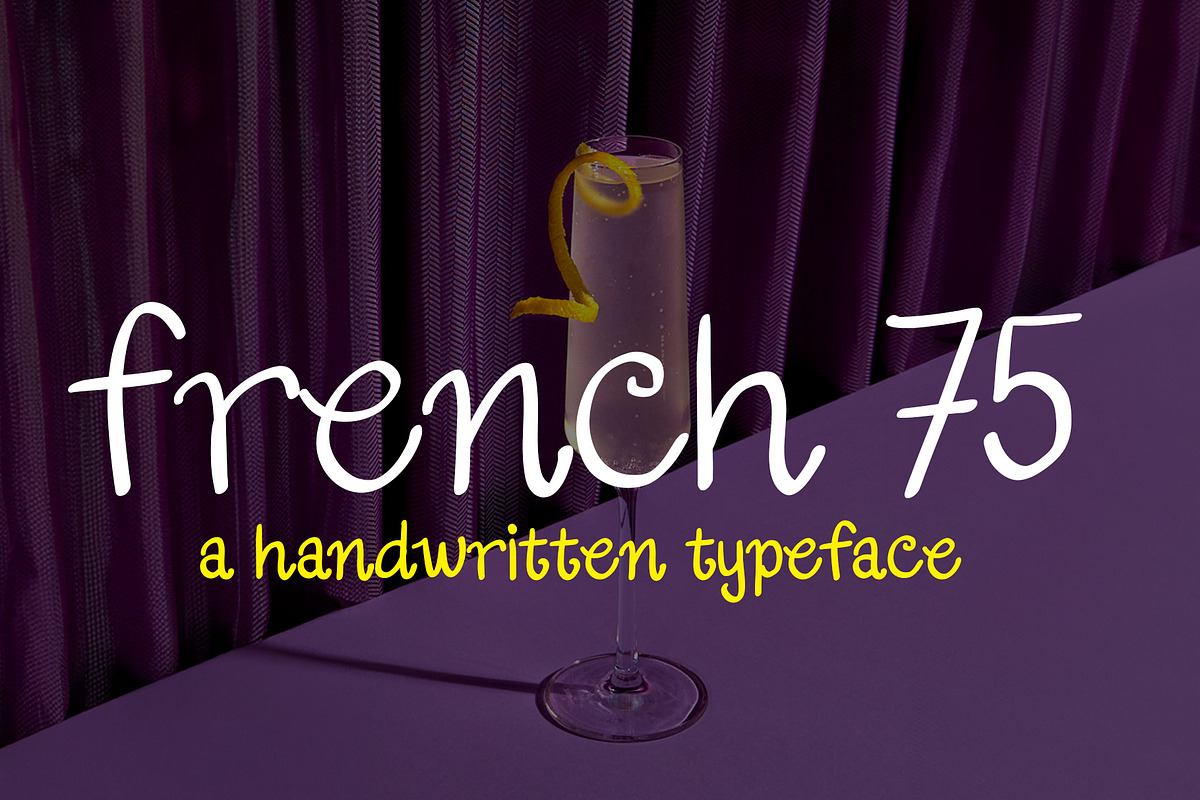
French 75 Handwritten Script Free Download
French 75 – Handwritten Script Font Free Download
French 75 – Handwritten Script Font Free Download is a chic and effortlessly elegant script typeface inspired by the timeless sophistication of vintage cocktails and Parisian flair. With its flowing strokes, delicate ligatures, and naturally slanted style, this font is perfect for wedding stationery, fashion branding, upscale packaging, signature logos, and romantic quotes.
Designed to evoke luxury and charm, French 75 – Handwritten Script Font Free Download pairs beautifully with minimalist serif or sans-serif fonts, making it an ideal choice for high-end design projects that call for a personal, graceful touch.